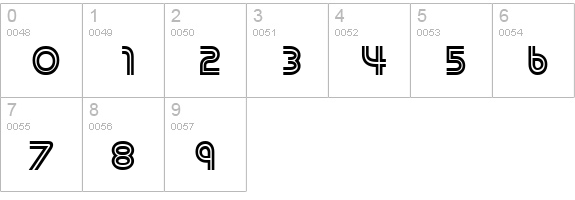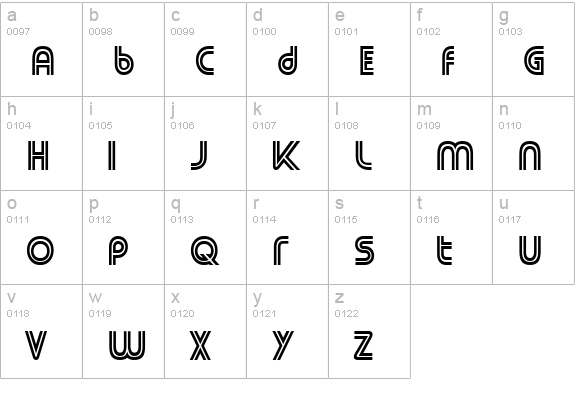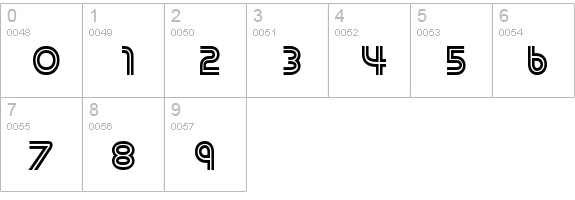
Street Cred Font Details
The Street Cred font exudes urban style and modern sophistication with its bold and edgy design. Perfect for adding a touch of streetwise flair to your projects, this versatile font is ideal for branding, posters, logos, and more. With its sharp angles and contemporary aesthetic, Street Cred commands attention and makes a statement. The best part? Street Cred is available for free download at FontsMarket.com, making it easily accessible for designers and creatives looking to elevate their work with a touch of urban attitude. Don't miss out on this dynamic font that will give your designs the street cred they deserve. Download Street Cred today and unleash your creativity!